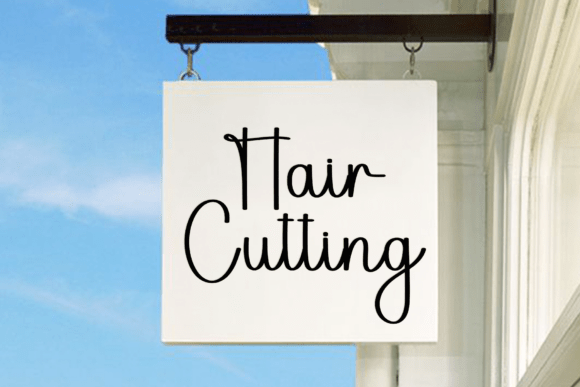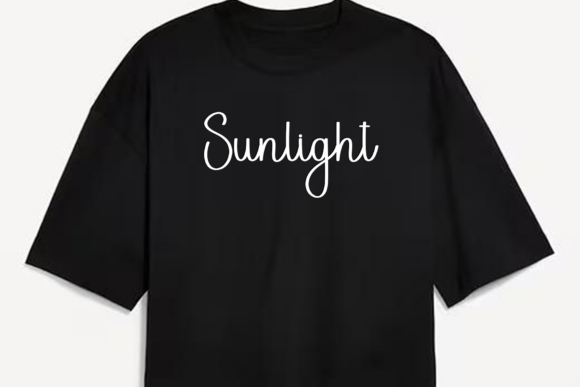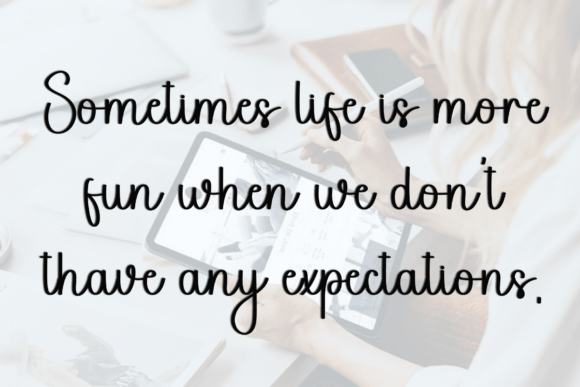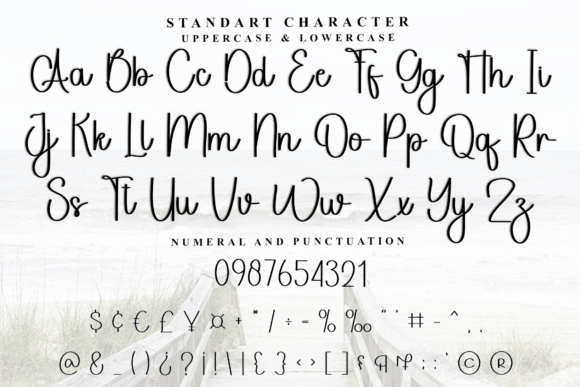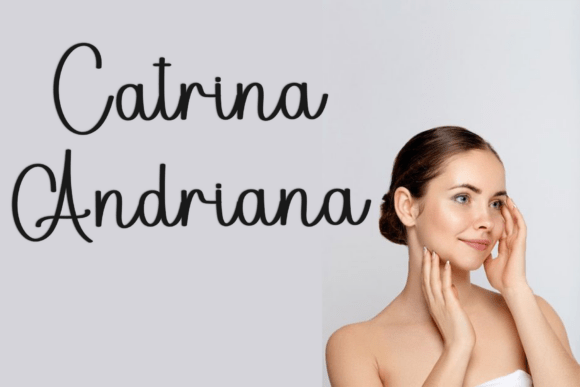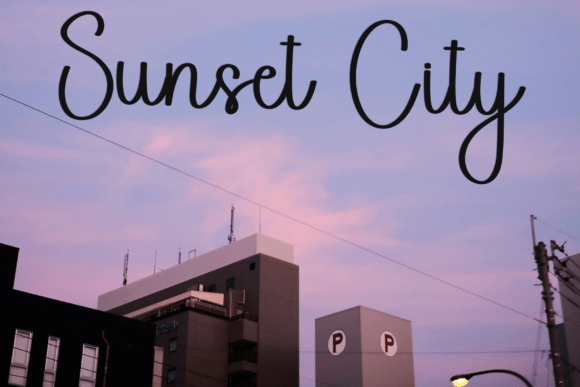
Introduction to Signature Wedding Font
Do you remember the moment when you first started brainstorming ideas for your wedding invitation, and you knew exactly the font you wanted to use? For many of us, the choice of font can make or break the overall aesthetic of our creative projects. That’s where the Signature Wedding Font comes in – a beautiful and eye-catching font designed with a soft, unique touch.
With its distinctive strokes and special character, the Signature Wedding Font is not only meaningful but also versatile for future use. Whether you’re working on a design project, crafting a personalized gift, or simply looking for a high-quality design resource, this font is sure to enhance your creations and make them appealing to a wide range of audiences.
Key Features of Signature Wedding Font
- Unique, elegant design perfect for creative wedding projects and invitations.
- High-quality font with a transparent background, ideal for overlaying on images or backgrounds.
- Includes a range of characters, including uppercase and lowercase letters, numbers, and special characters.
- Perfect for use in various design projects, from wedding invitations and stationery to social media graphics and website design.
Honest Review: Signature Wedding Font
- ✨ Elegant and sophisticated design that’s perfect for wedding invitations and other wedding-related materials.
- ✨ High-quality font that’s crisp and clear, even when used in large sizes.
- ✨ Transparent background option allows for seamless integration with other design elements.
However, there are a few limitations to consider.
- ⚠️ Limited character set, which may not be suitable for longer text blocks.
- ⚠️ Not all glyphs are available in the transparent background option.
Overall, I’m impressed with the Signature Wedding Font. While it may have some limitations, its beauty and elegance make it a valuable addition to any design resource collection. Whether you’re working on a wedding project or simply looking for a high-quality font, the Signature Wedding Font is definitely worth considering.
Compared to Signature Wedding Font, Bella Script has a more classic and timeless feel, while Signature Wedding Font has a more modern and whimsical touch. Both fonts are great options, but Bella Script is a better choice when you want to convey a sense of tradition and elegance.